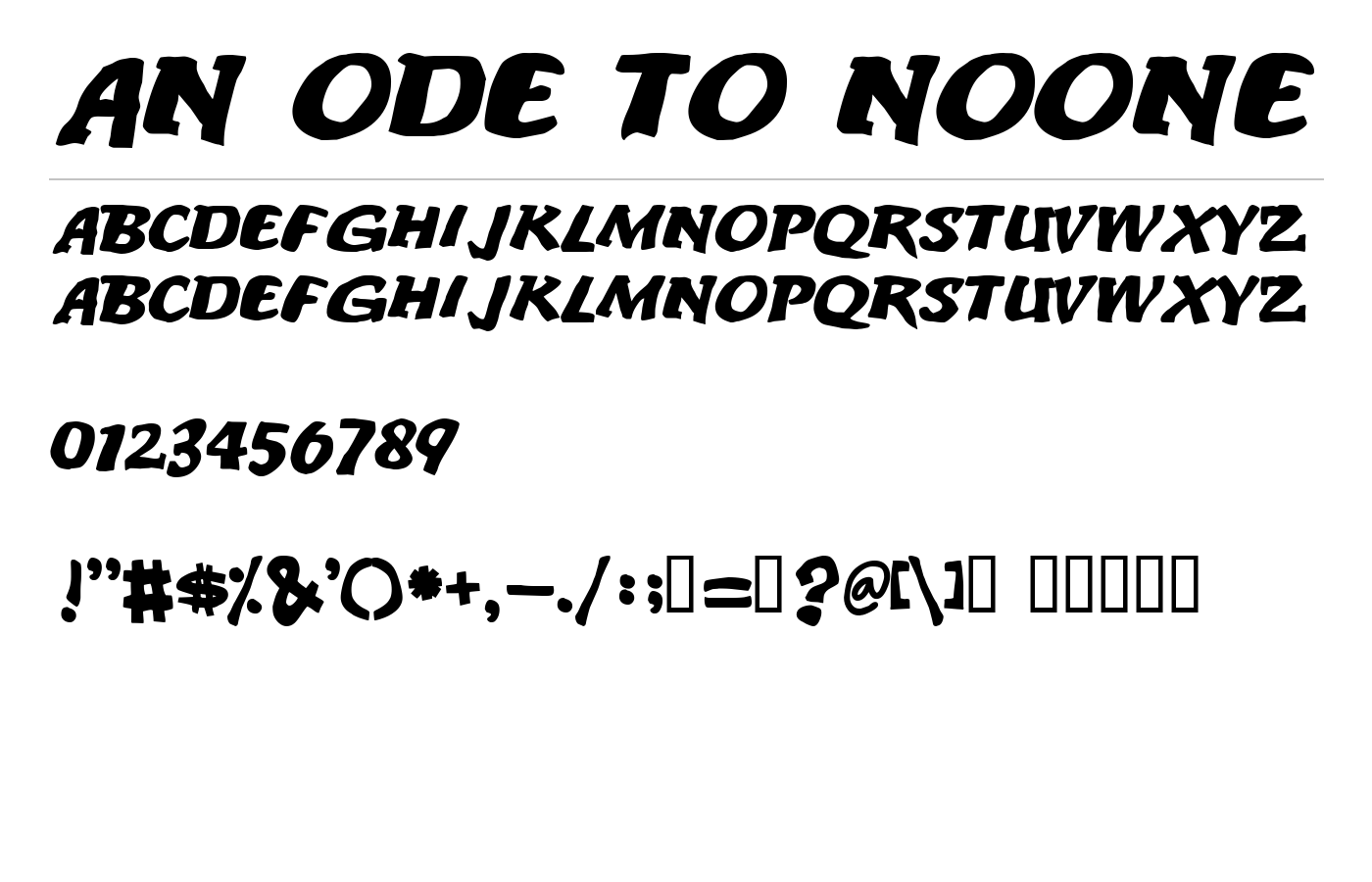
An ode to noone is a bold, stylized sans serif font with a playful, hand-drawn feel. Its wide, energetic letterforms and moderate contrast make it perfect for eye-catching headlines, logos, and creative projects that want to convey a dynamic and informal personality. This font works well where you need a strong, distinctive presence without losing readability or charm.
An ode to noone Font